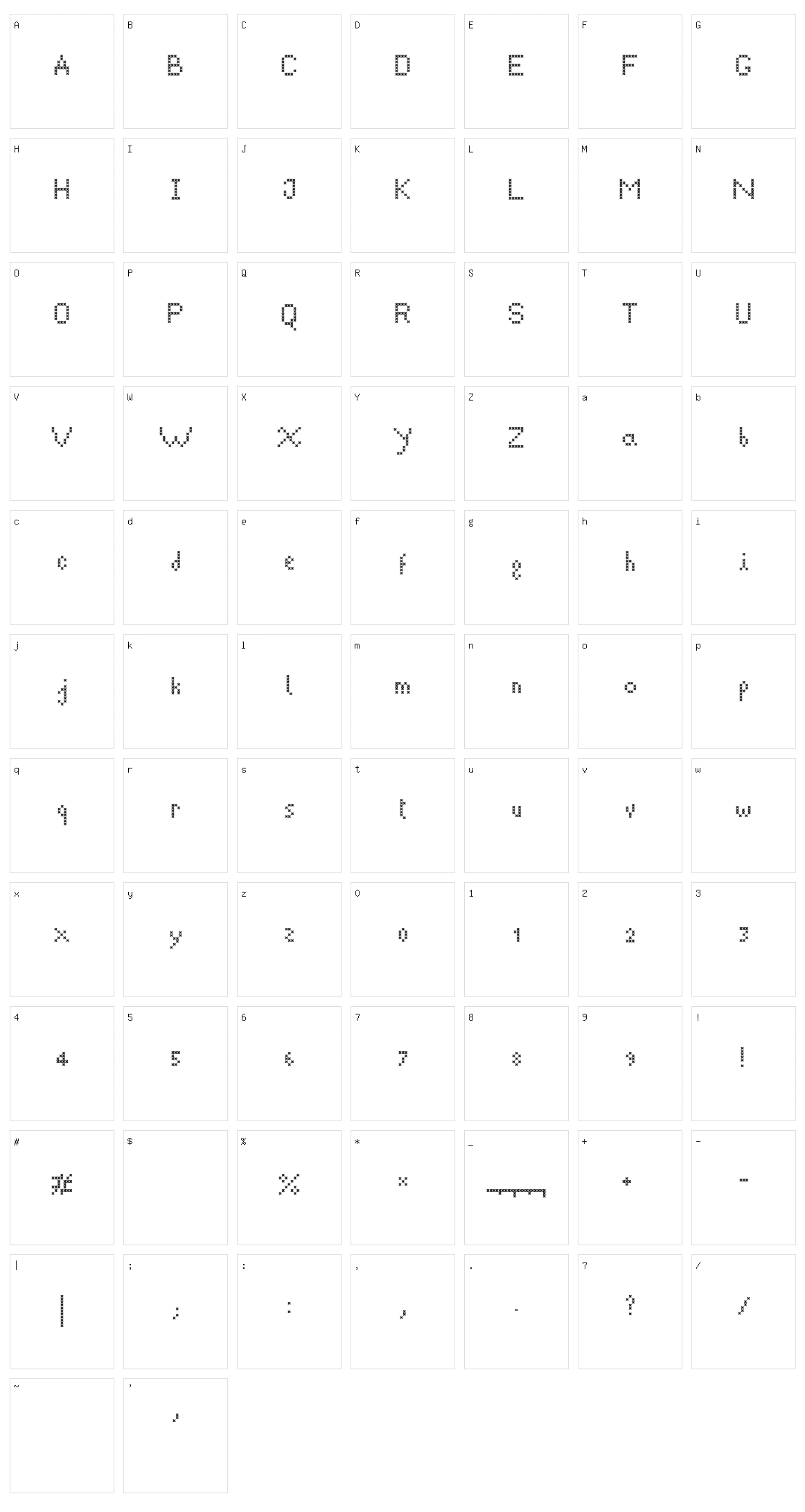
# FONTLOG for the Chic Advanced Cross-Stitch Fonts #
# Basic Font Information #
ACSF-Chic are two similar cursive cross-stitch fonts designed by P. Baudin.
- acsf-chic-5pt.ttf (cross-stitches placed in a grid)
- acsf-chic-5pt-light.ttf (cross-stitches without grid)
ACSF-Chic is a Unicode typeface that supports languages that use the Latin
script and requires the OpenType feature ccmp in addition to the classic
kerning and ligature features.
Since the fonts contain a lot of ligatures, they support partially the Latin-1
Unicode range. The fonts are incomplete but contains the letters used in most
alphabets of European Latin languages (diacritic characters included), Czech
letters with inverted hat, the German eszett ligature and specific letters of
some Scandinave alphabets.
The fonts contains some special characters:
- `~`: 1pt space
- `_`: 20pt of cross stiches
- `$`: cuts a ligature (including kerning) and doesn't introduce any space.
- Initial design of ACSF-Chic fonts derived from cross-stitch charts published
before 1930.